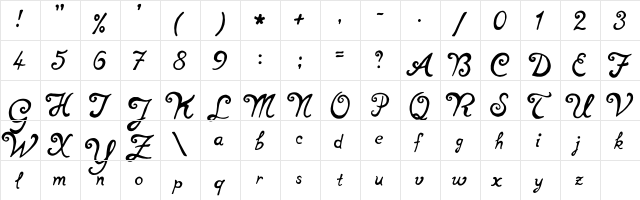
notperfect regular Regular
| Foundry | Cruzine |
| Designer | Cruzine |
Design Context for notperfect regular Typeface
notperfect regular takes a measured approach to typography — its balanced proportions and neutral character make it a reliable workhorse for both digital and print work.